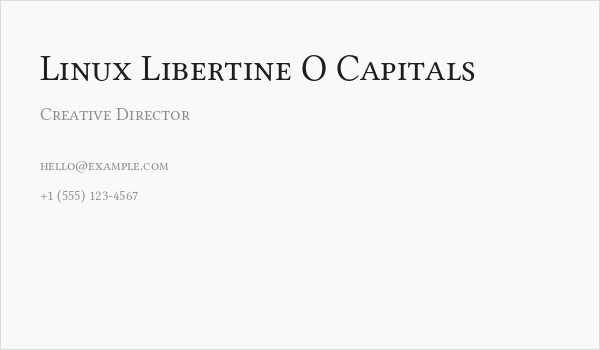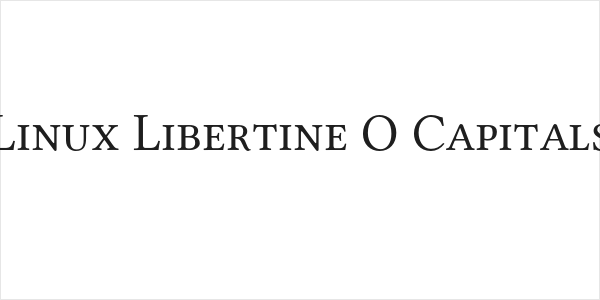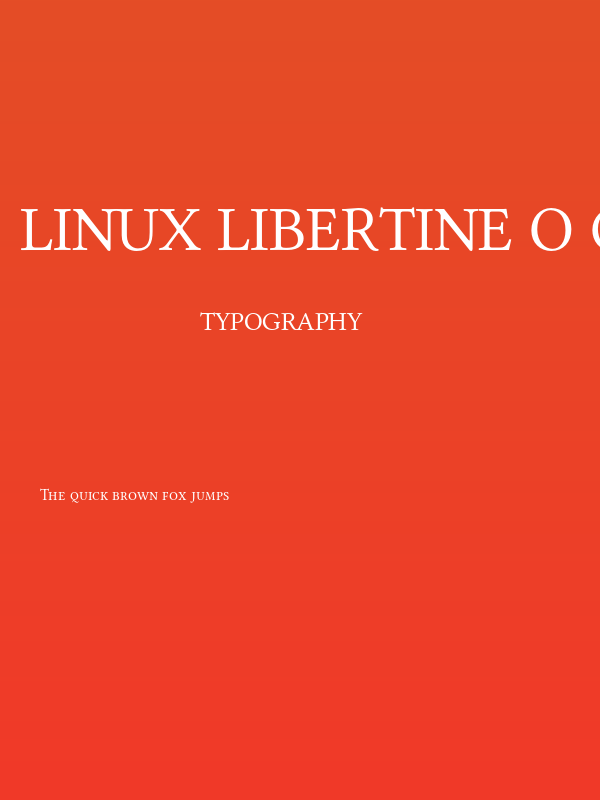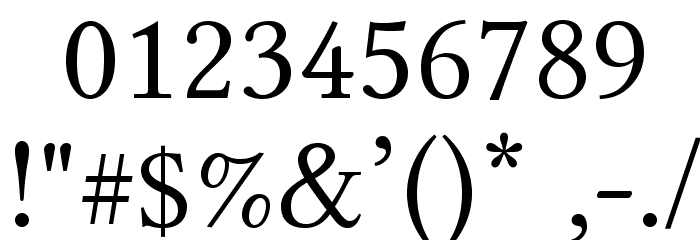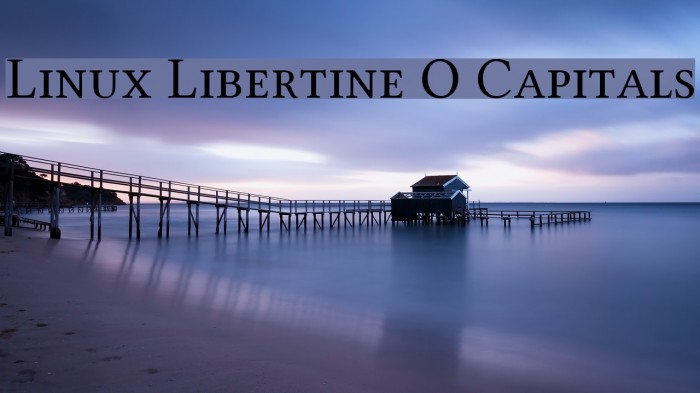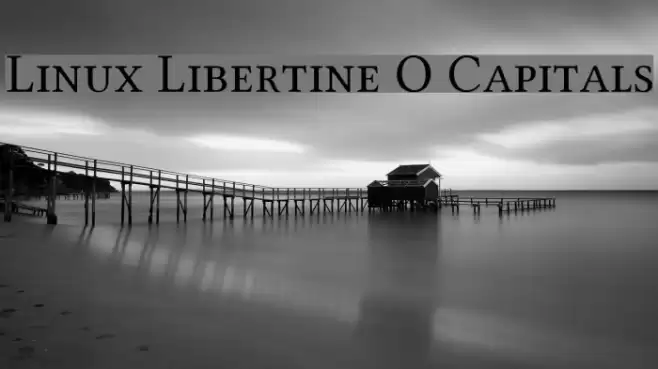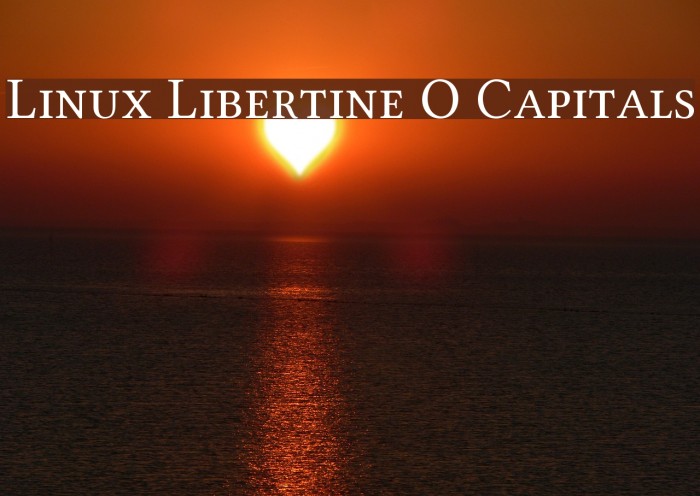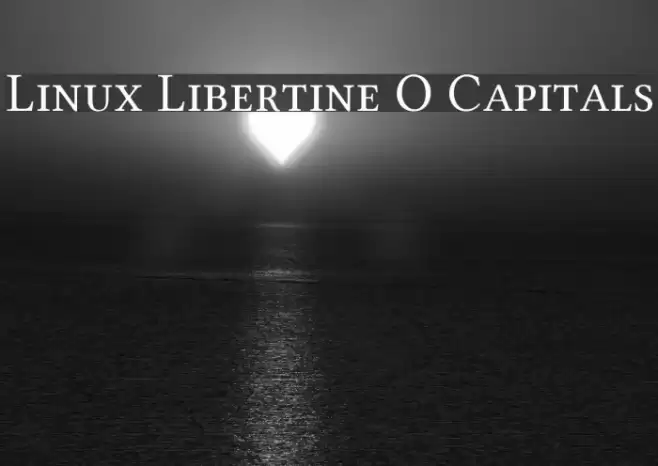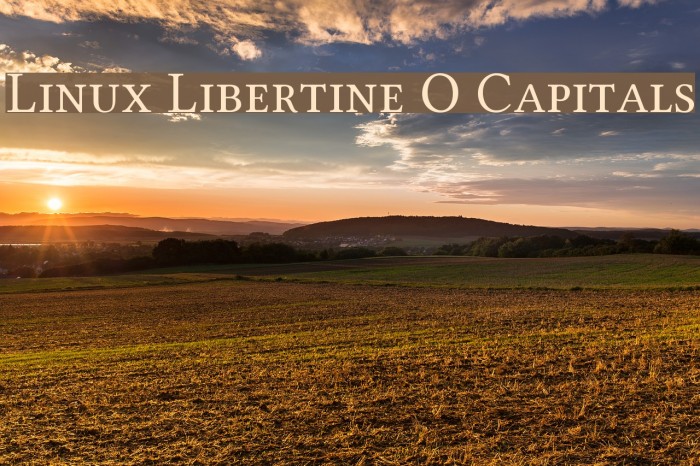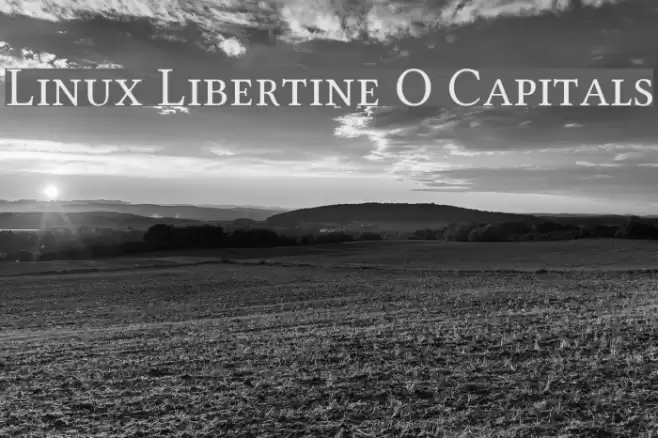
Linux Libertine O Capitals Font
Linux Libertine O Capitals Description
This font features a classic serif design with a touch of elegance and sophistication. The characters are well-proportioned, with a moderate contrast between thick and thin strokes, giving it a refined appearance. The serifs are slightly curved, adding a subtle grace to the overall look. The uppercase letters are bold and commanding, while the lowercase letters maintain a consistent style, ensuring readability. The numerals are clear and distinct, making them suitable for both text and display purposes. Special characters are designed to complement the overall aesthetic, maintaining the font's cohesive style.
| Overall Style | Classic |
| Use Case | Headlines, Body text, Logos |
| Proposed Projects | Ideal for book typesetting, formal invitations, branding materials, and editorial design. |